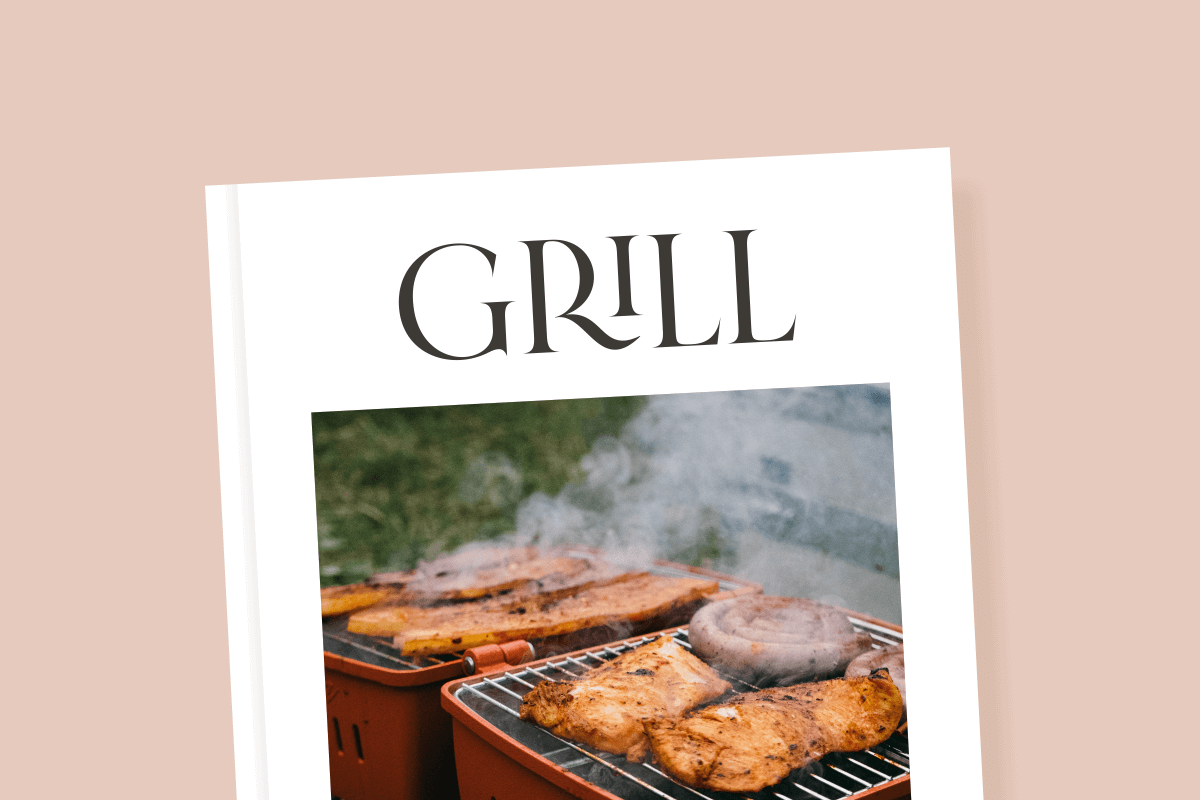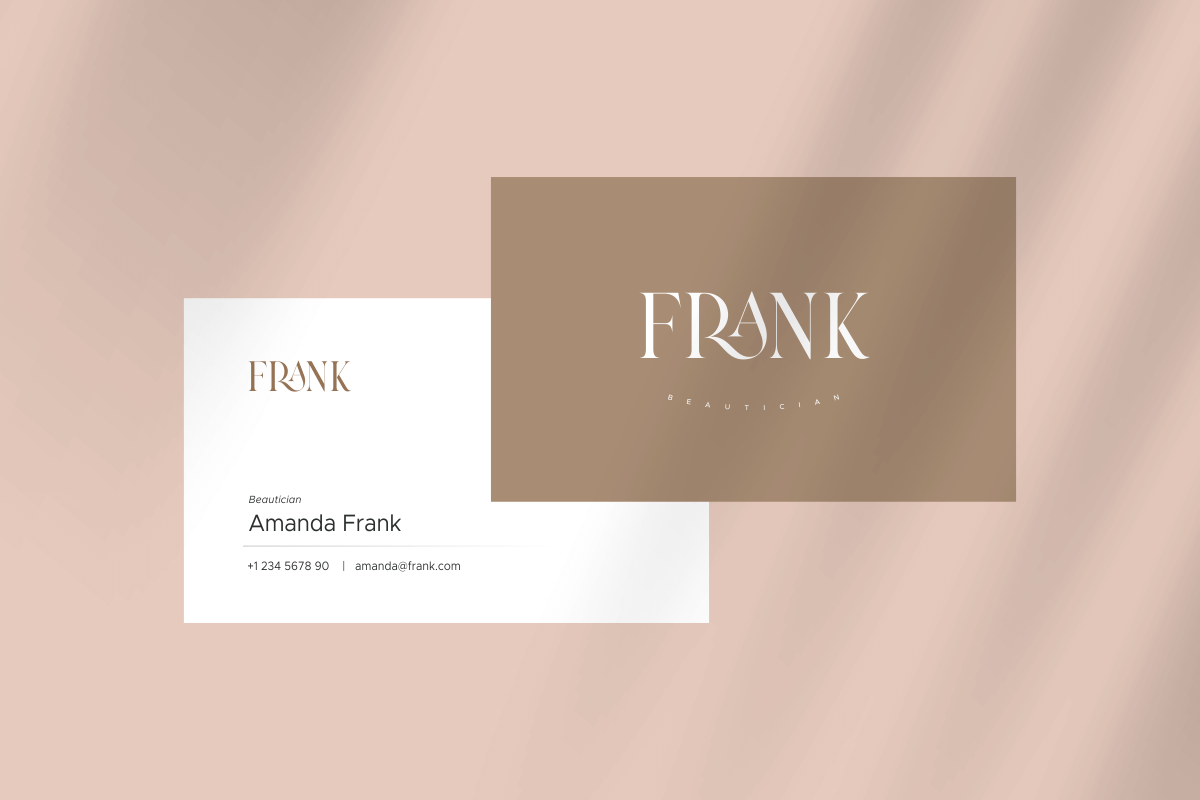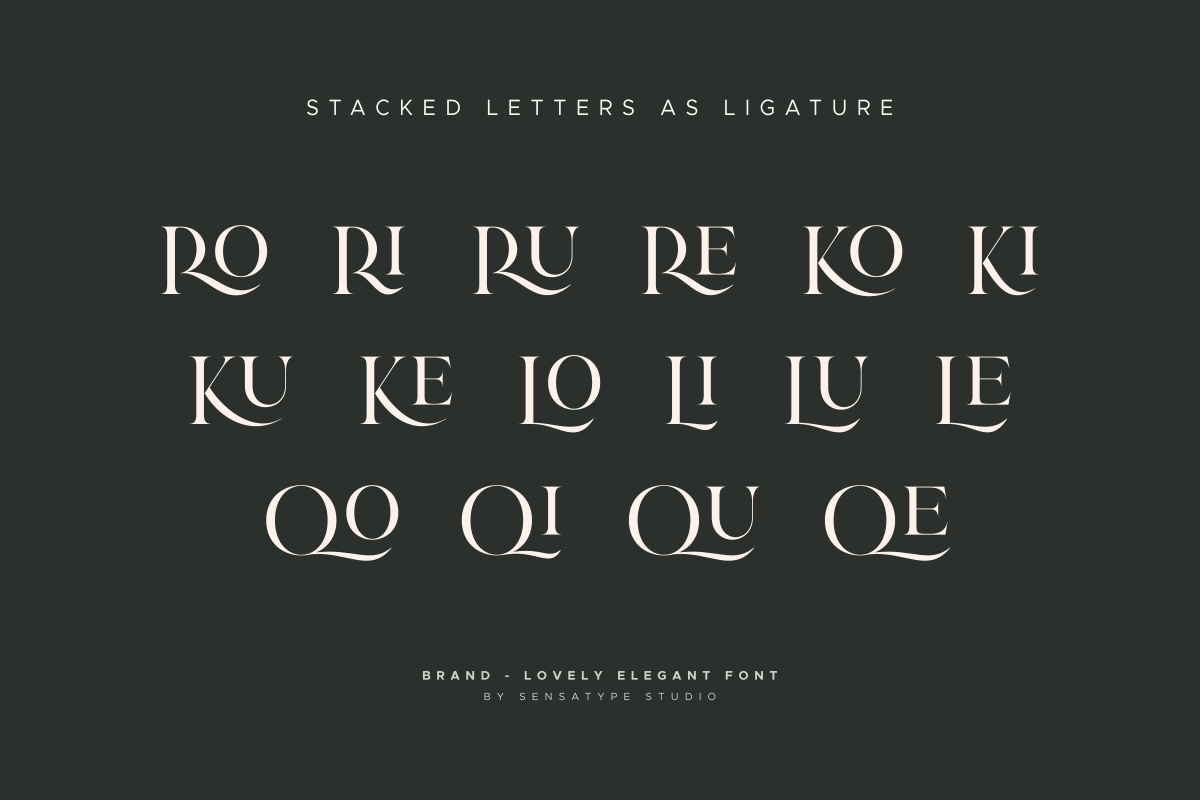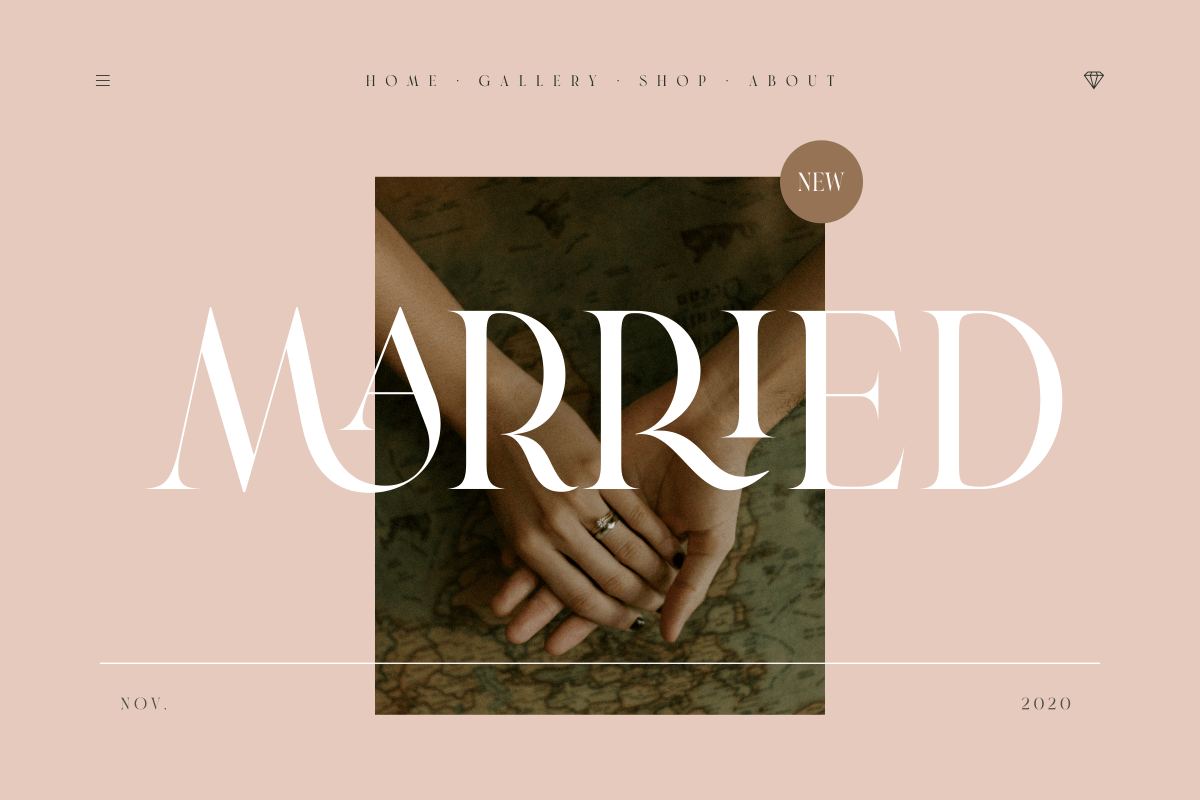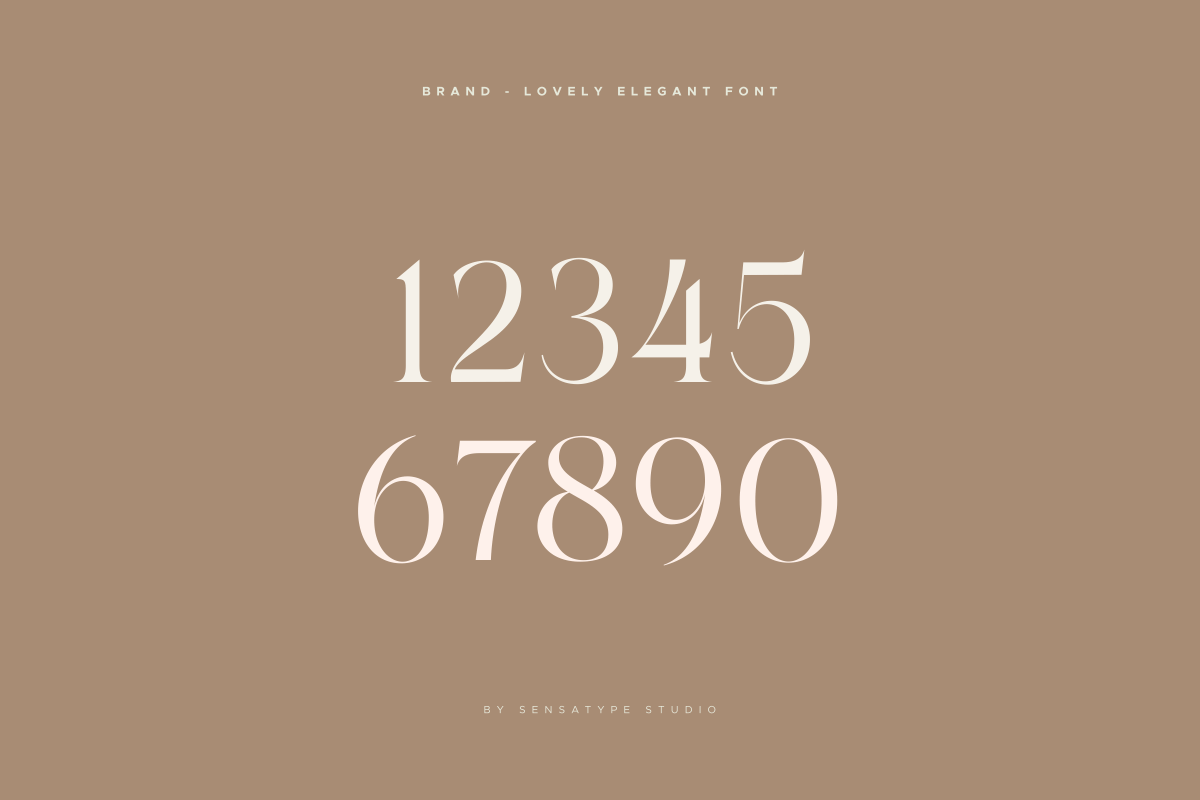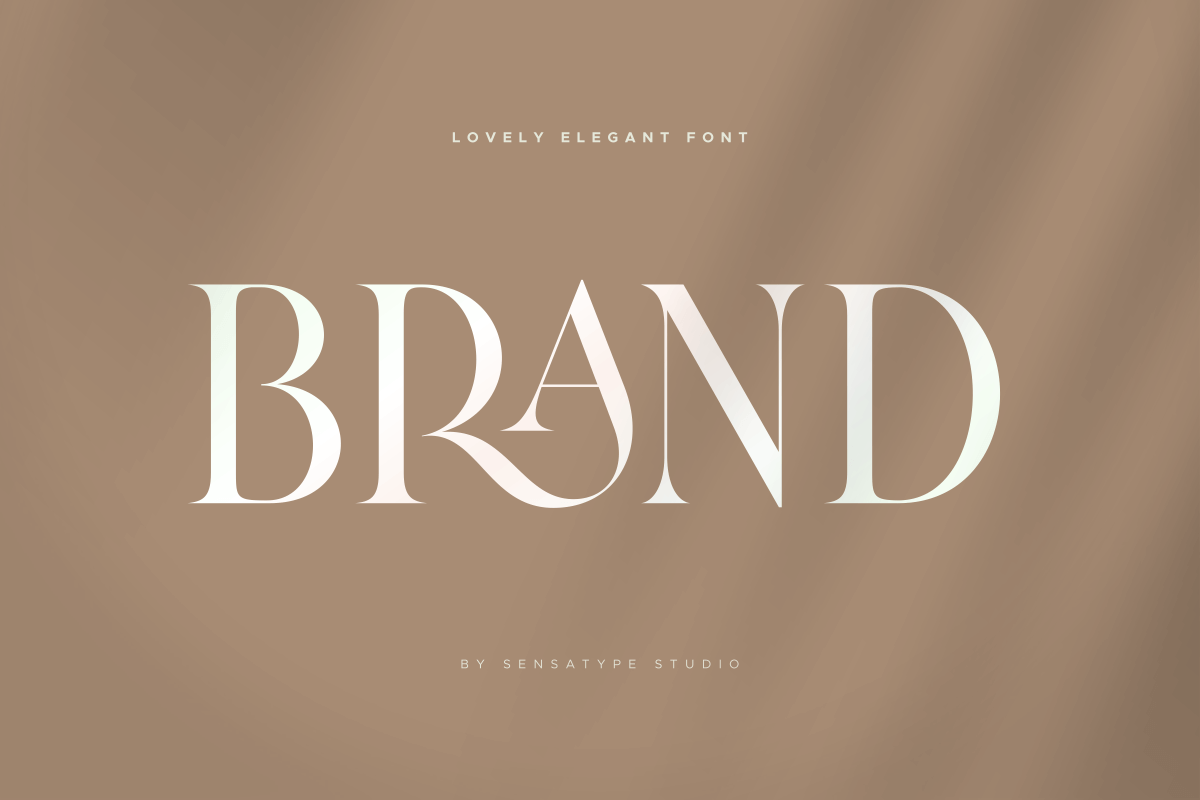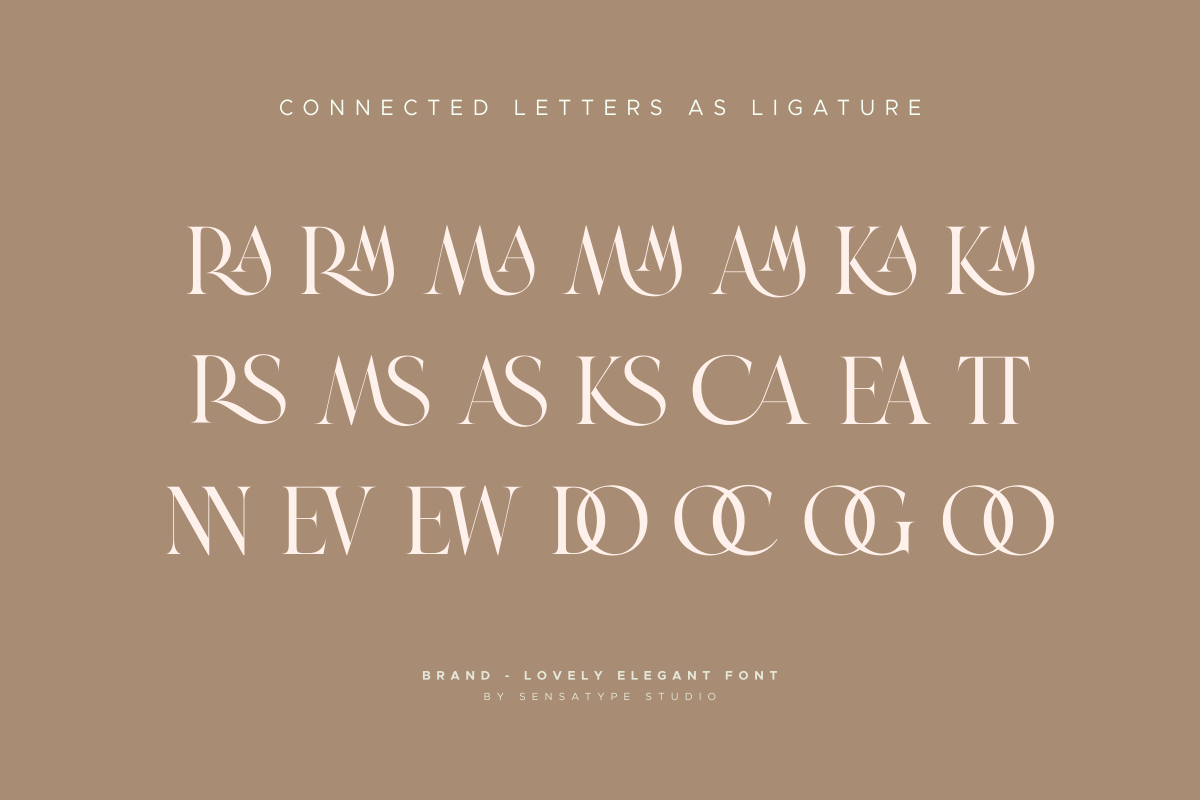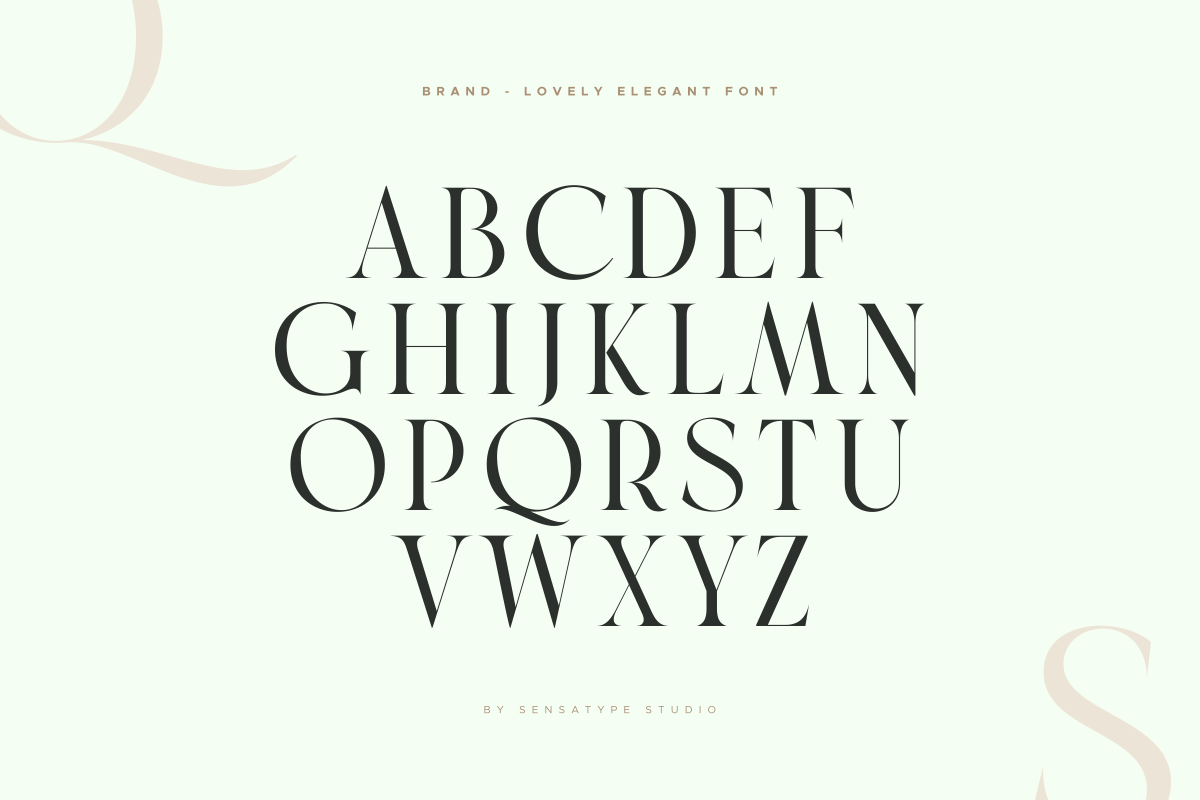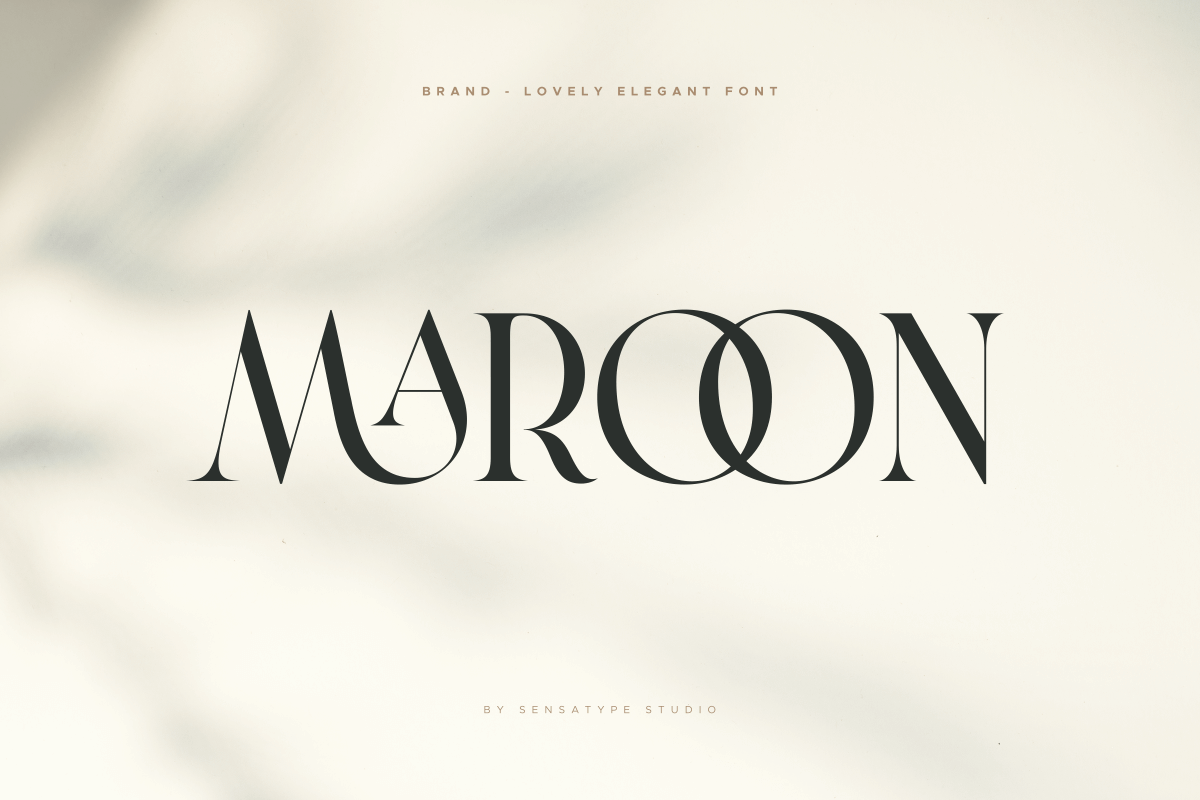
Brand - Lovely Elegant Font
Brand is a lovely elegant font designed to bring charm and sophistication to your creative projects. Its graceful letterforms make it ideal for branding, logos, invitations, packaging, and editorial designs.
With a perfect balance of style and readability, Brand enhances any project, giving it a refined, professional, and visually appealing appearance. Suitable for both print and digital applications, it adds a touch of elegance to every design.
Brand – Lovely Elegant Font Features
• Graceful and stylish character set
• Elegant and sophisticated design
• Includes uppercase, lowercase, numerals, and punctuation
• Perfect for digital and print applications
• OpenType features for versatile typography
• Multilingual support